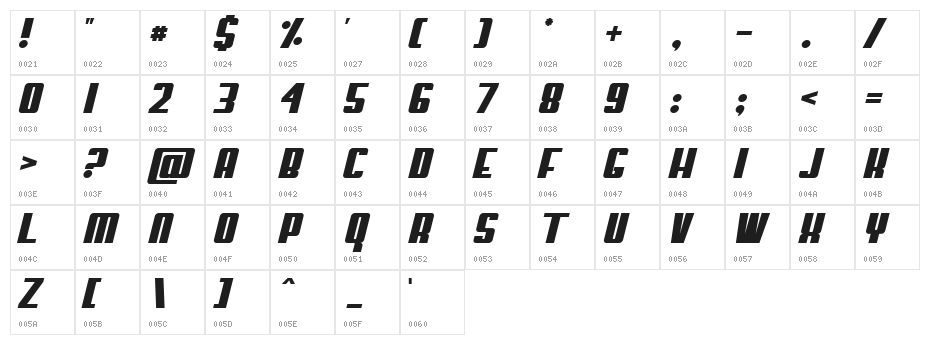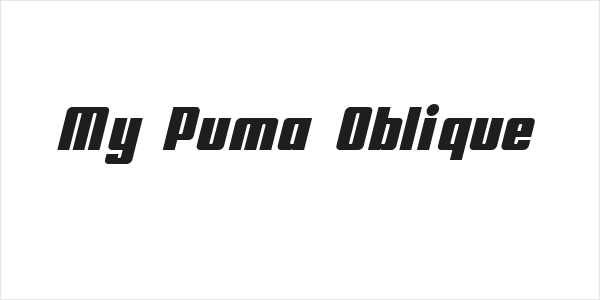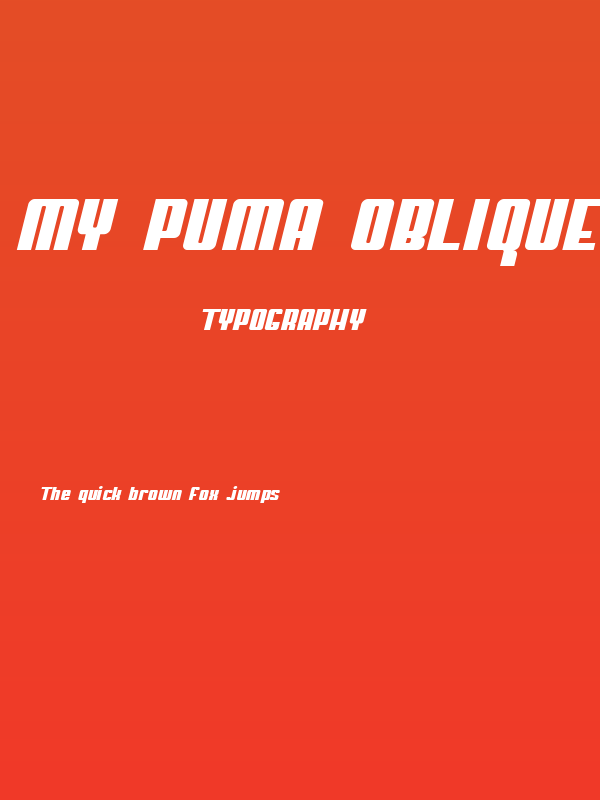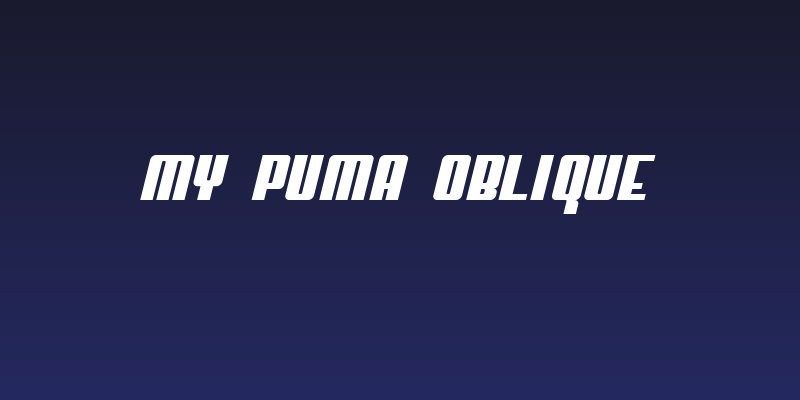
My Puma Oblique Font
My Puma Oblique Description
This font features a bold, dynamic style with a strong oblique slant, giving it a sense of motion and energy. The characters are wide and robust, with a consistent stroke thickness that enhances readability while maintaining a distinctive appearance. The uppercase and lowercase letters are well-proportioned, and the numerals are clear and impactful. Special characters are designed with the same boldness, ensuring uniformity across all glyphs. This font's design is modern and assertive, making it suitable for projects that require a strong visual presence.
| Proposed Projects | Ideal for sports branding, dynamic posters, and modern advertising campaigns. |